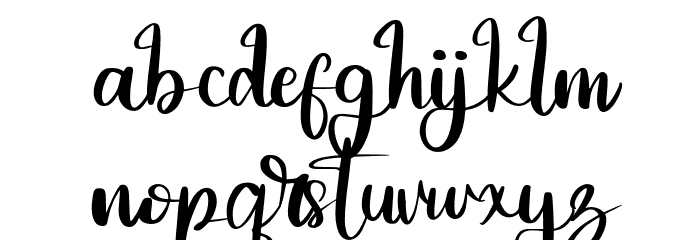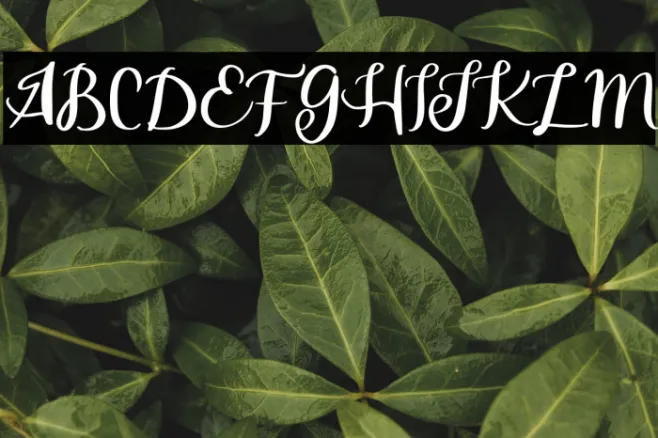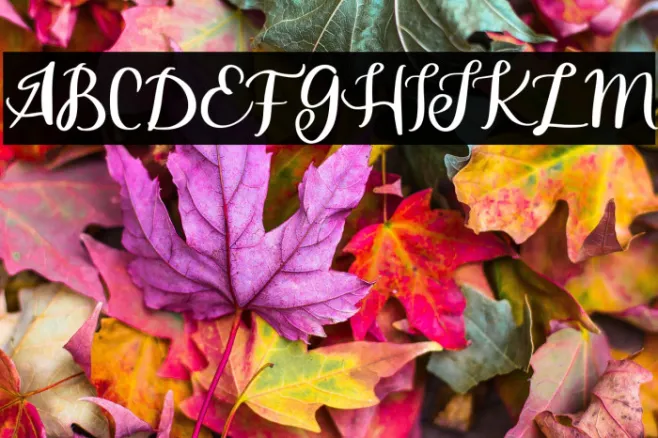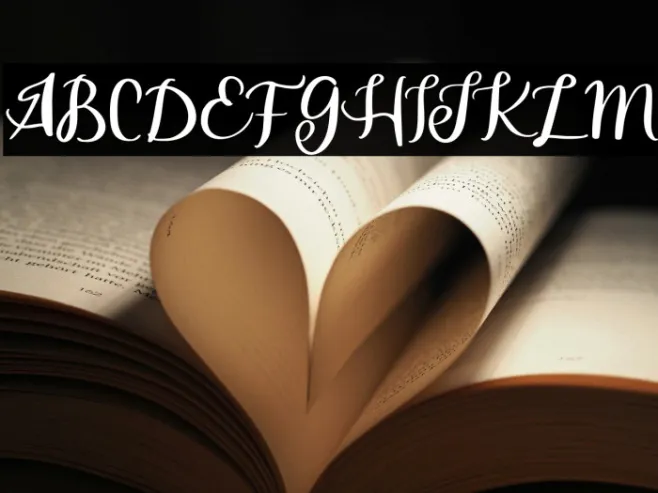
SerfebFREE Font
This font features an elegant and flowing script style, characterized by its smooth, cursive strokes and artistic flair. The uppercase letters are bold and expressive, with sweeping curves and loops that give a sense of movement and grace. The lowercase letters maintain a consistent style, with rounded forms and a harmonious balance between thick and thin lines. This font exudes a sense of sophistication and creativity, making it ideal for projects that require a touch of elegance and personality. The overall appearance is both modern and timeless, suitable for a variety of design applications.
An elegant, flowing script font with expressive curves and artistic flair.
- Font: SerfebFREE
- Proposed Projects: Ideal for wedding invitations, greeting cards, branding, and logo design.
- Category: Script
- Overall Style: Elegant, Artistic
- Use Case: Logos, Invitations, Decorative text